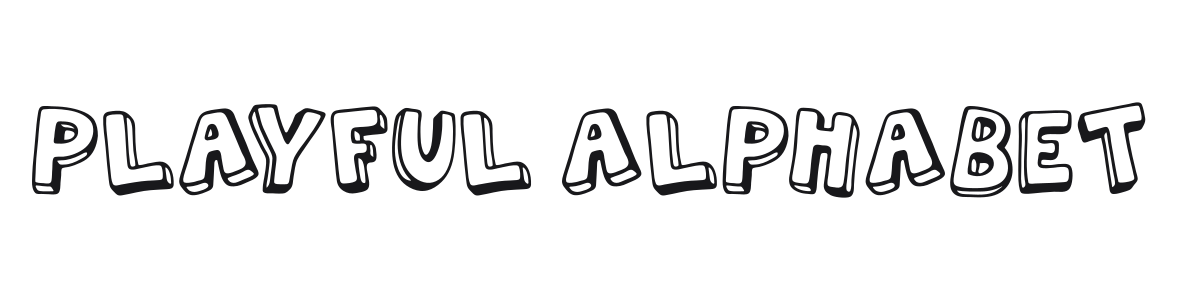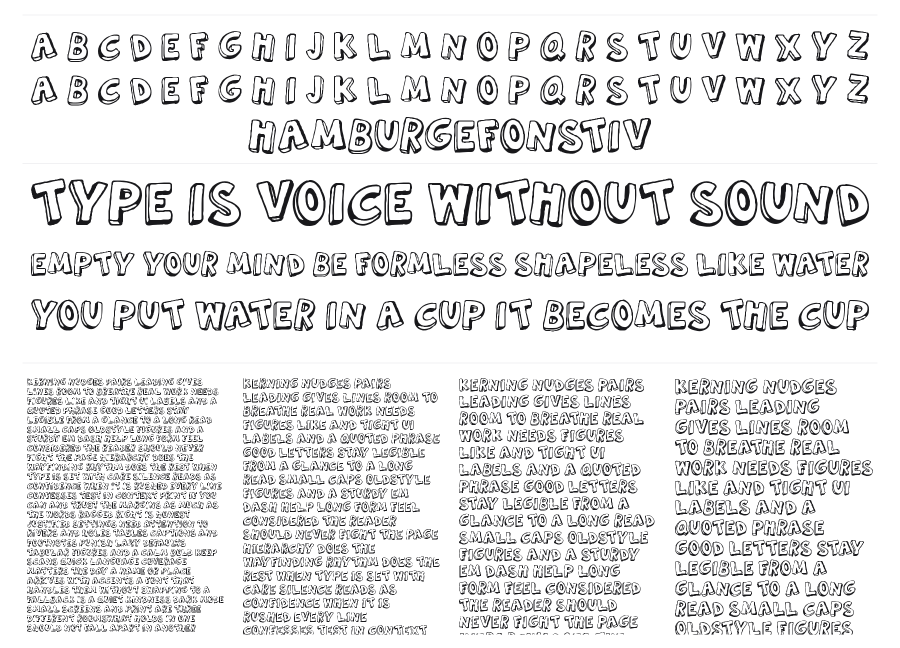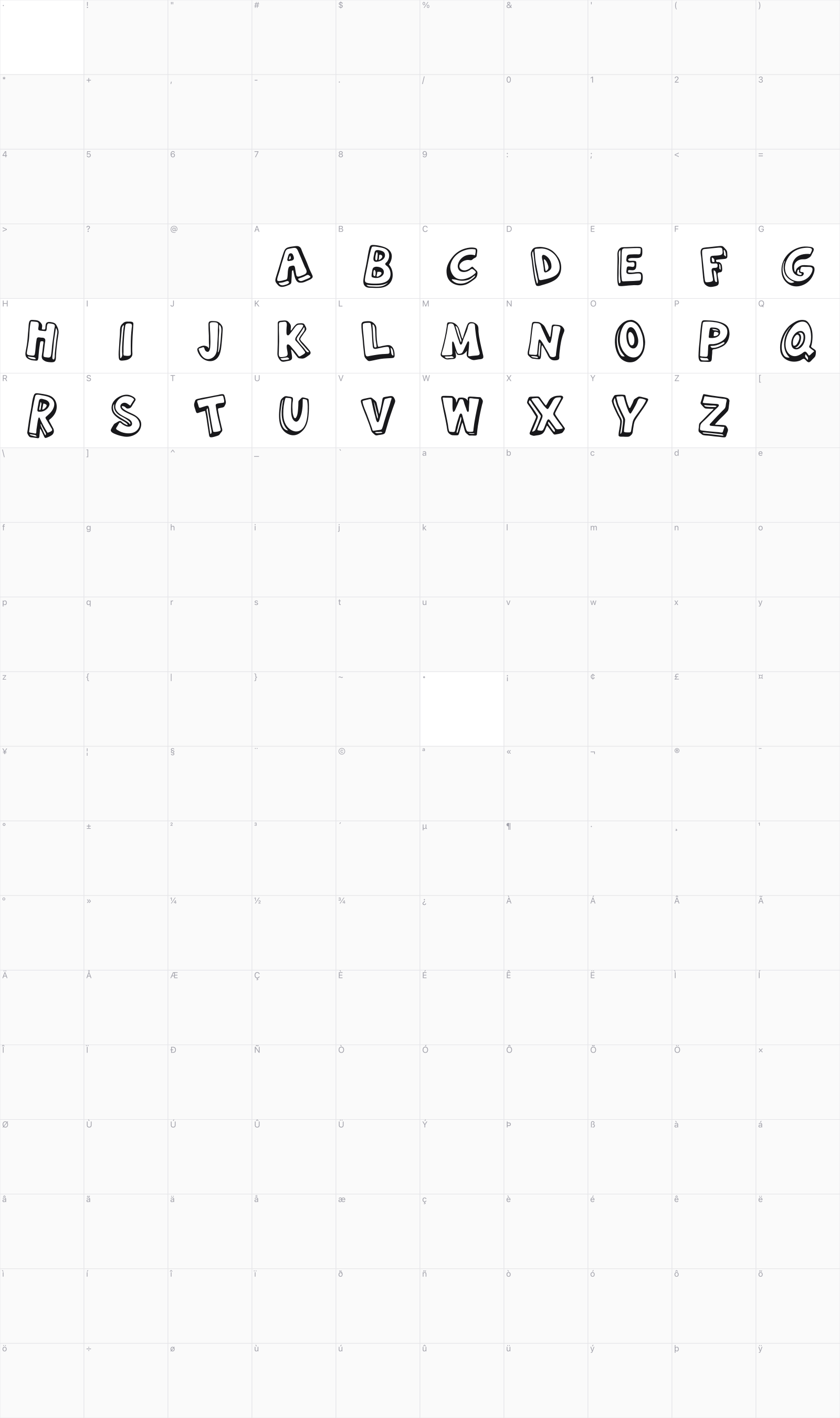
Playful Alphabet
Playful Alphabet is a bold, bubbly display font with thick rounded letters wrapped in a comic-book outline. The puffy inline treatment gives each character a soft three-dimensional pop that works especially well over busy backgrounds and in children's contexts. It brings loud, friendly energy to headlines, packaging, and anywhere a little cartoon personality is welcome.